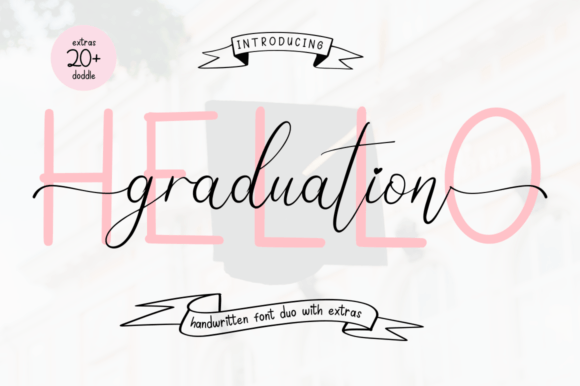
Introducing Hello Graduation Font, the ultimate choice for those seeking the perfect blend of beauty and playfulness in their designs. Created by the renowned Rissyletter Studio, this font collection is a true masterpiece.
With its exquisite handwriting script and stunning handwriting sans serif fonts, Hello Graduation Font is a must-have for anyone looking to elevate their creative projects. Whether you're designing a logo, crafting a headline, or establishing a brand identity, this font family is guaranteed to make a lasting impression.
Capture attention and leave a memorable mark with the Hello Graduation Font. Its versatility allows it to shine in various design contexts, whether it's the fashion industry, poster creation, music and movie promotion, gaming graphics, or the pages of a magazine or book. Bring your comics and cartoons to life, mesmerize your audience on YouTube and Instagram, or breathe life into your website with this captivating font collection.
But what truly sets Hello Graduation Font apart is its accessibility. This font is PUA encoded, granting you effortless access to an array of amazing glyphs and ligatures. Unleash your creativity and seamlessly incorporate these unique elements into your designs, making them truly one-of-a-kind.
So why settle for ordinary when you can embrace extraordinary? Let Hello Graduation Font be the driving force behind your next design triumph. Transform your ideas into visual masterpieces that evoke emotion, inspire action, and captivate your audience.
Don't miss out on the opportunity to enhance your creative journey. Take the leap and join countless others who have discovered the magic of Hello Graduation Font. Unleash your imagination and unlock limitless possibilities today.